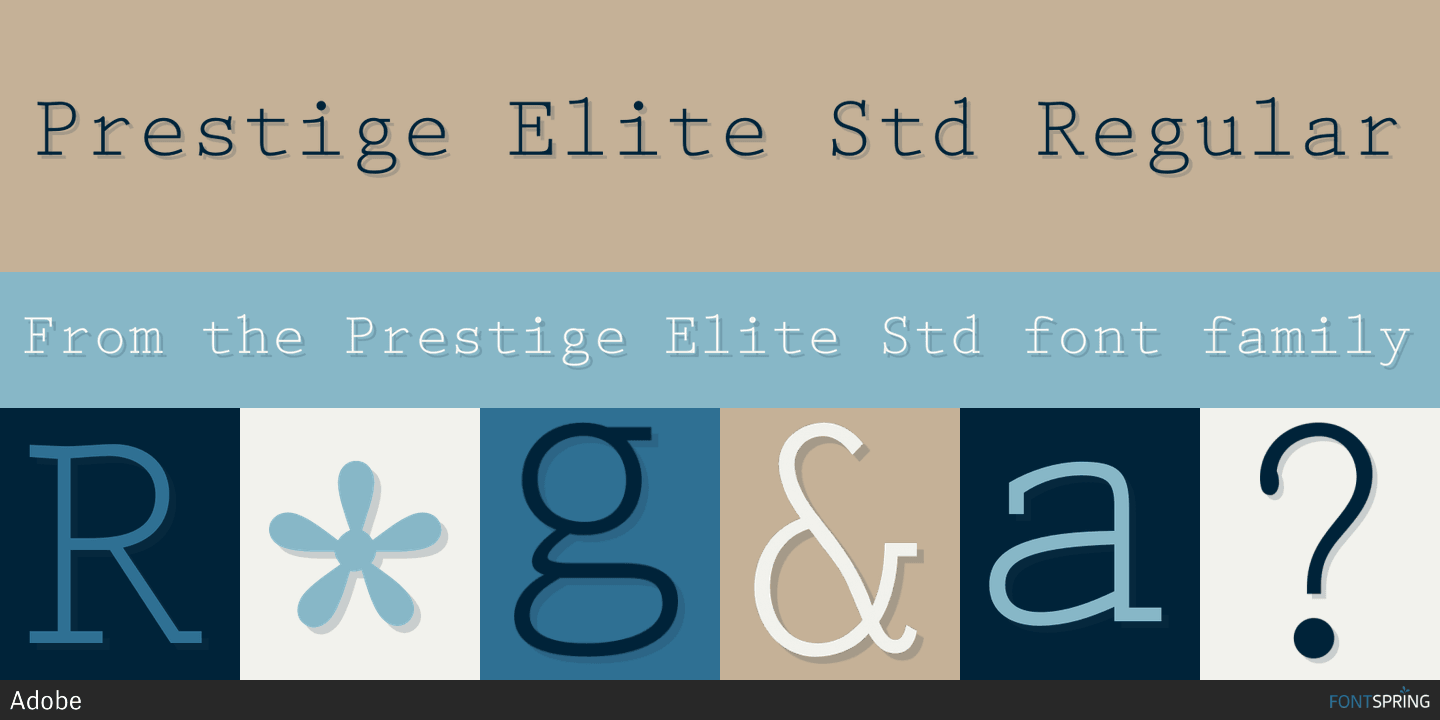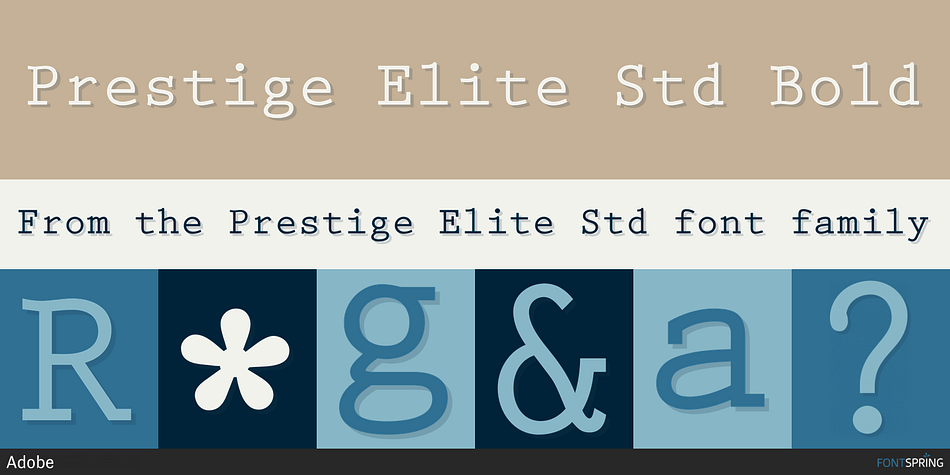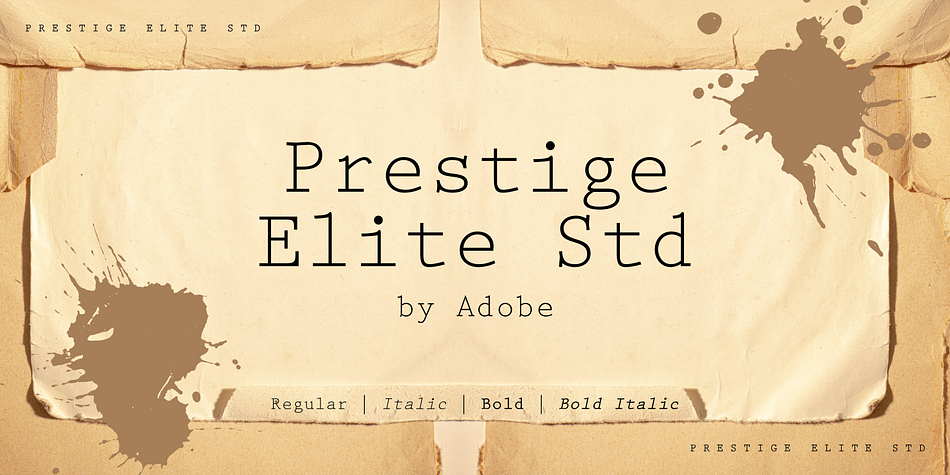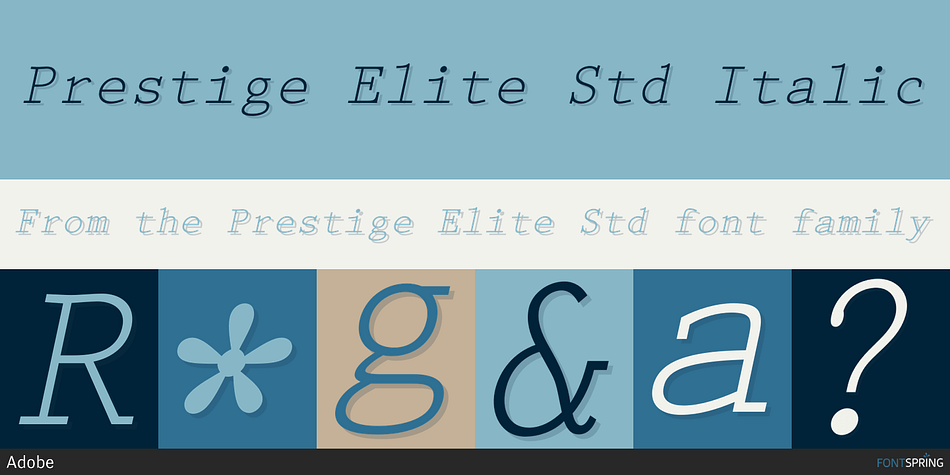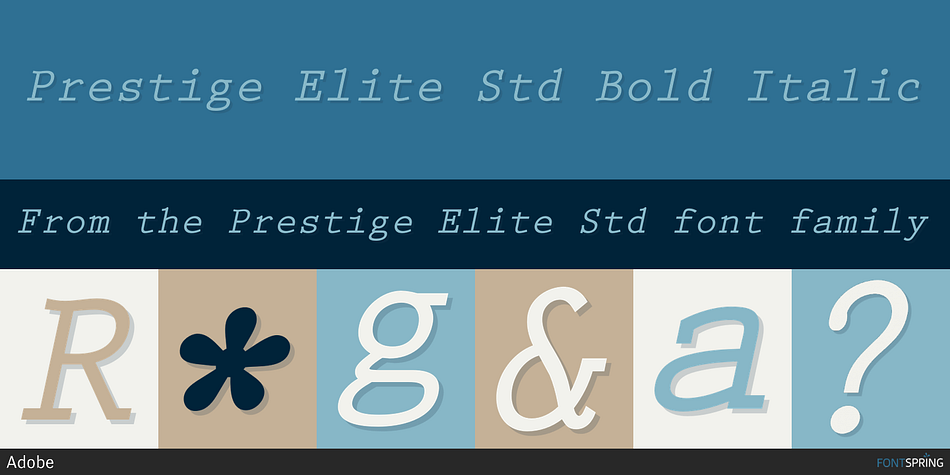
Prestige Elite Std is a typewriter and slab serif font family. This typeface has four styles and was published by Adobe.
Prestige Elite is a slab serif monospaced typeface originally intended for use on a typewriter. It was designed in 1953 by Howard Kettler for IBM. Prestige Elite is a good choice for price lists, tabular material, and informal office correspondence. Typefaces that were originally designed as monospaced typewriter types are effective in materials for personal communication or for capturing the look and feel of bygone days.